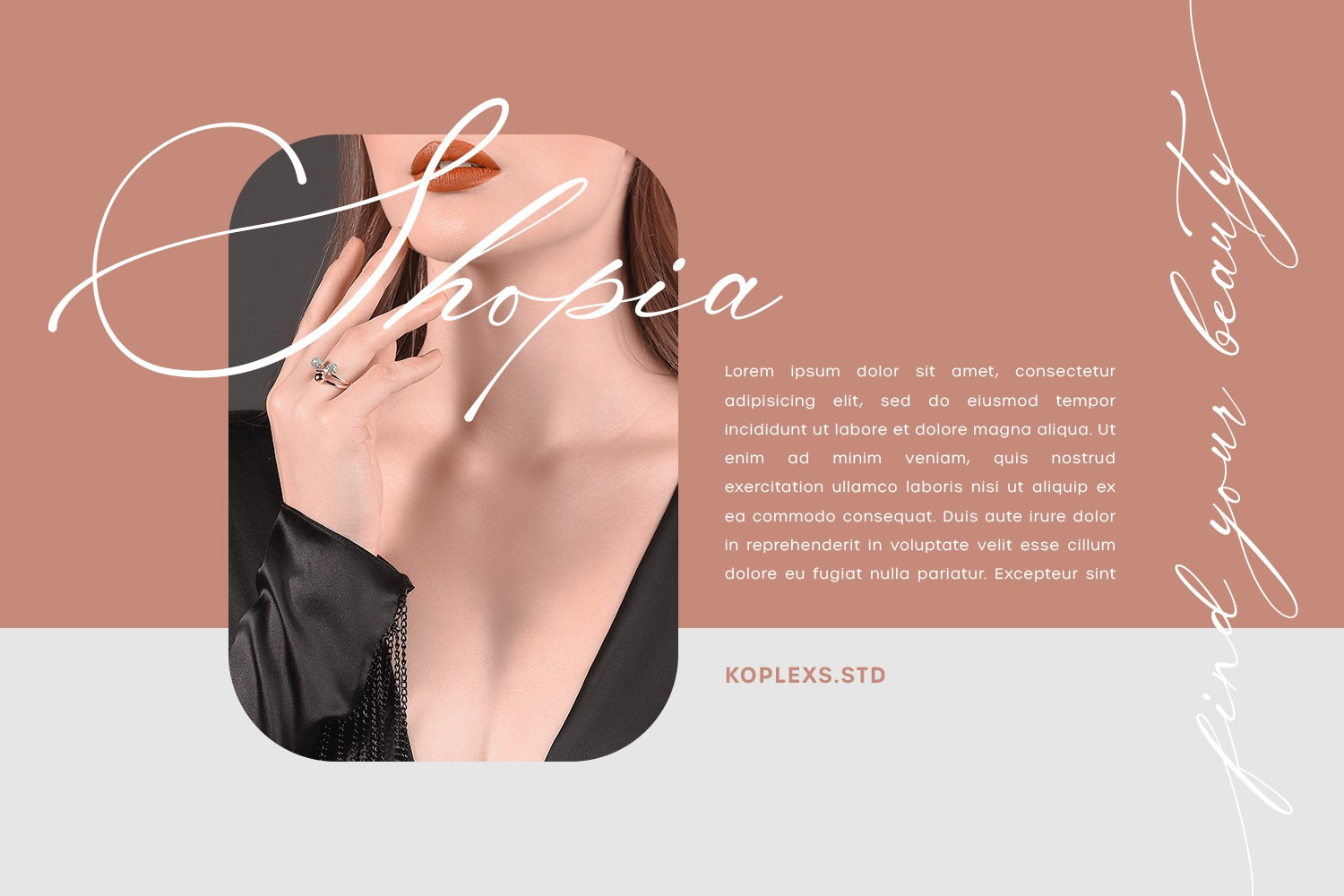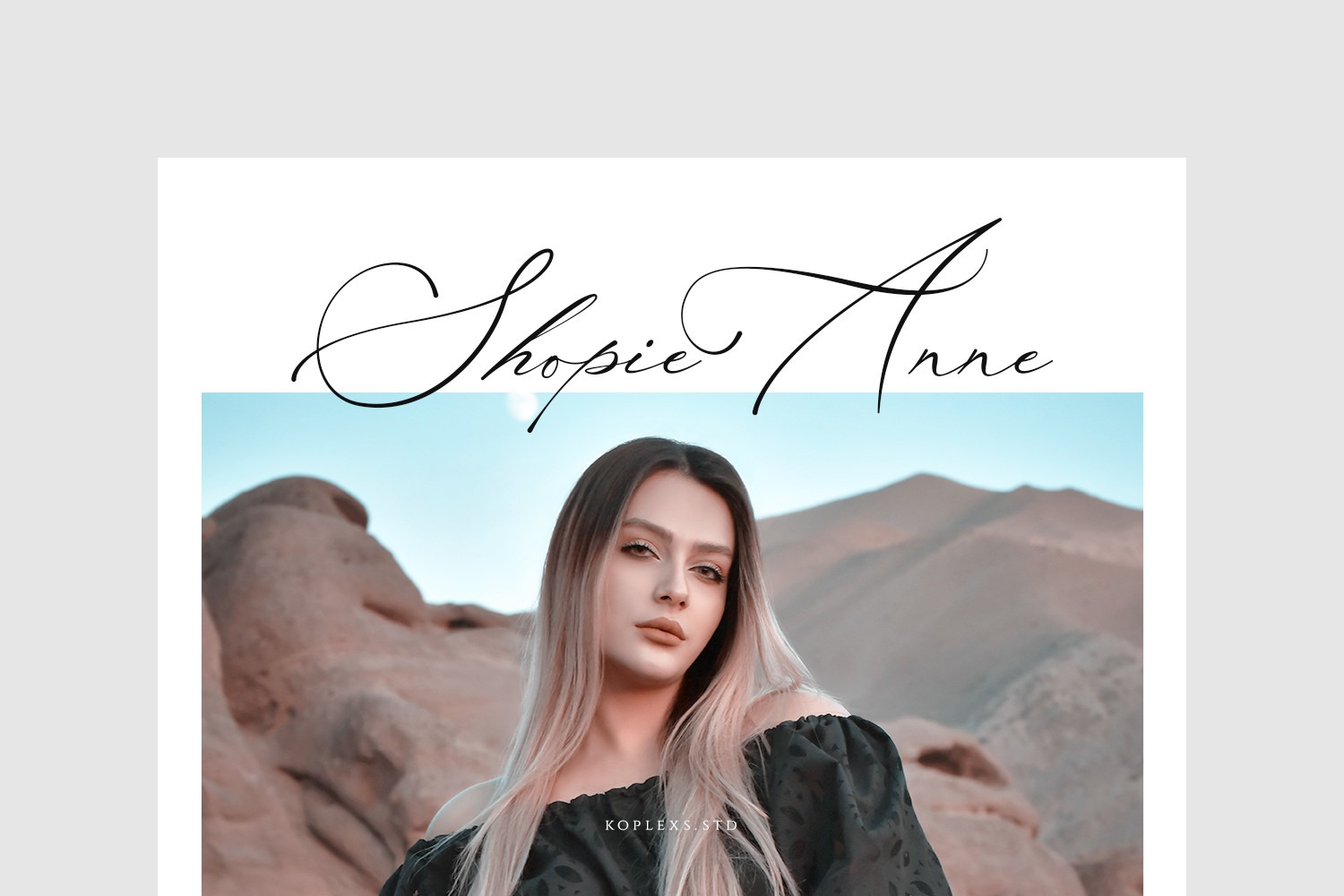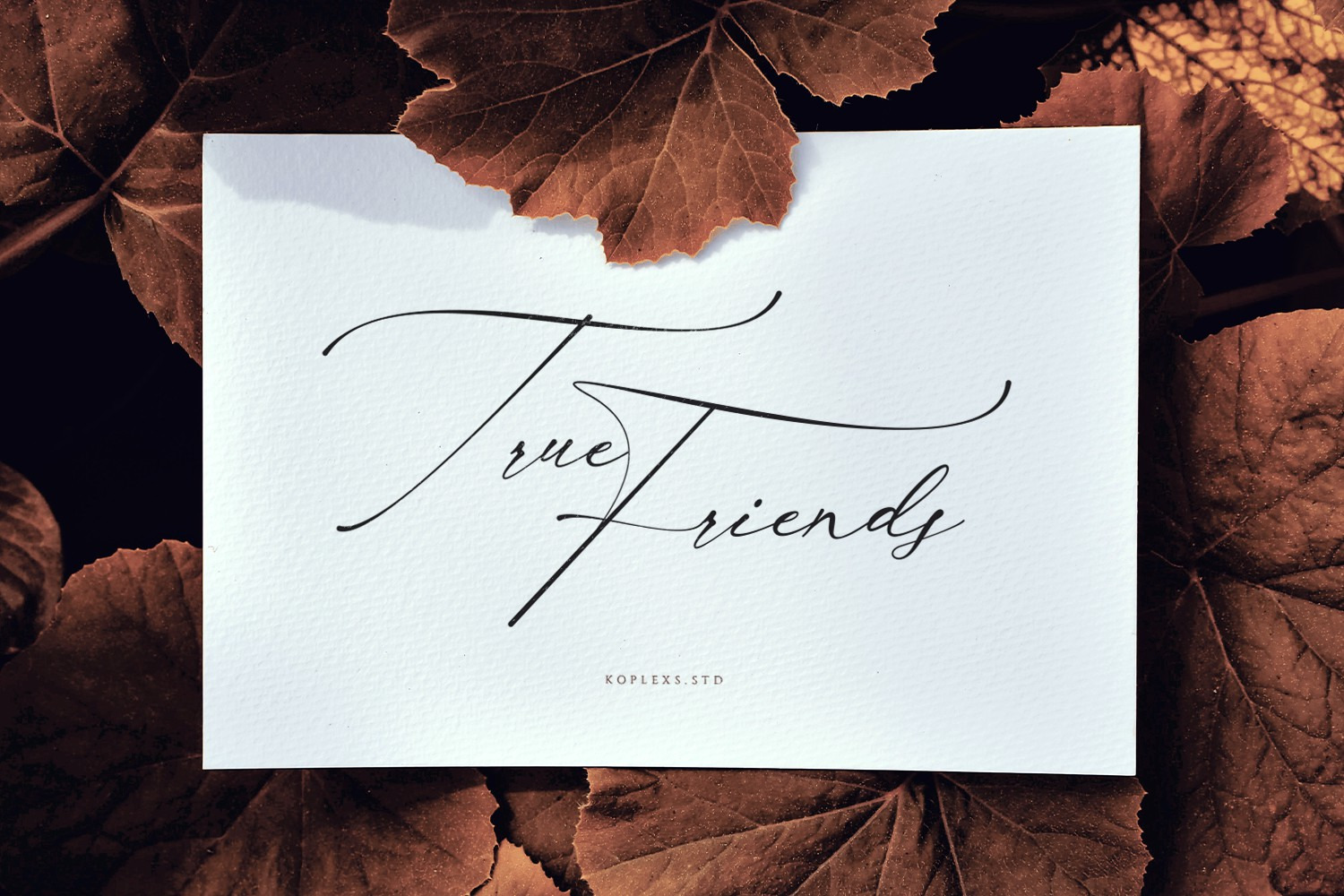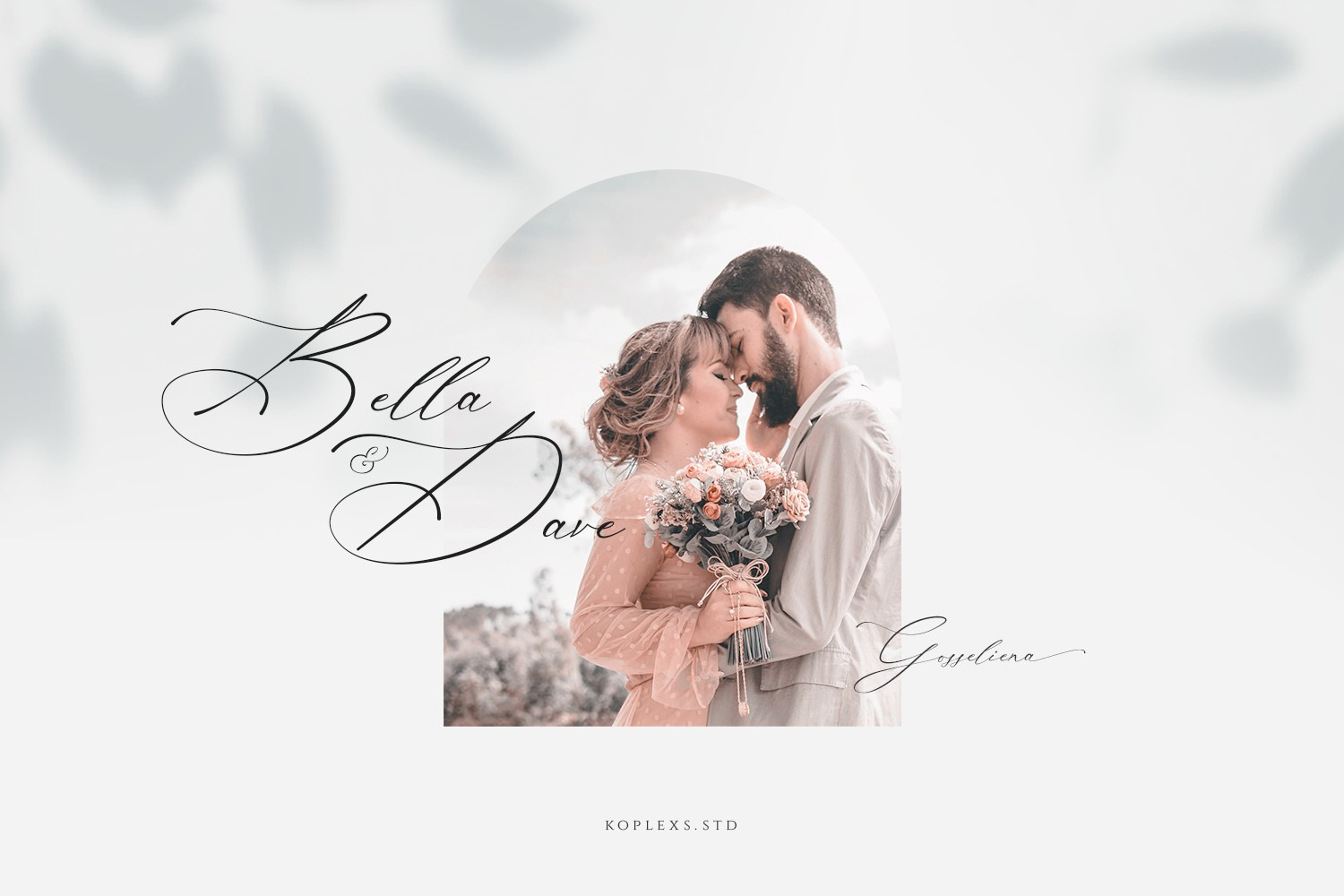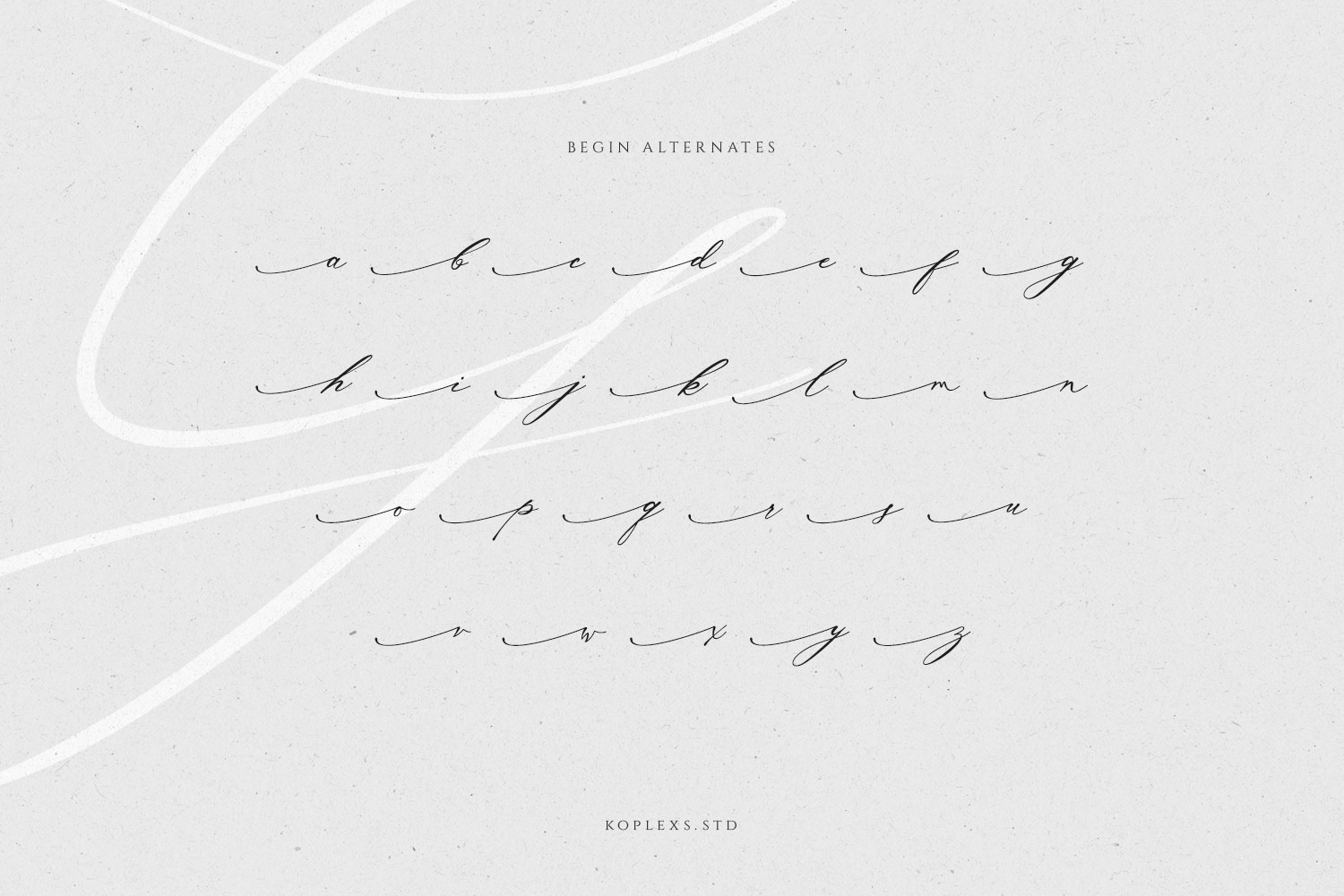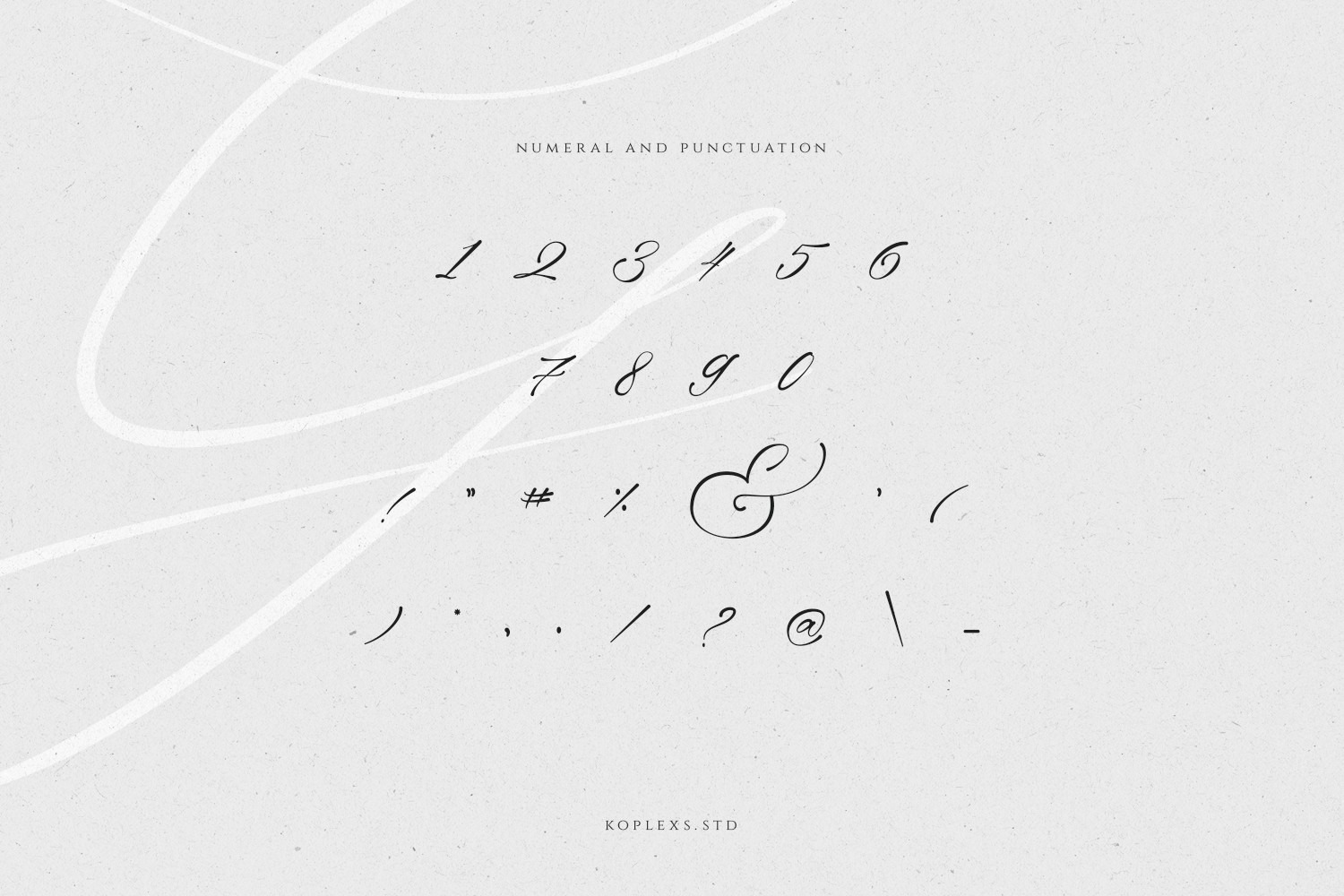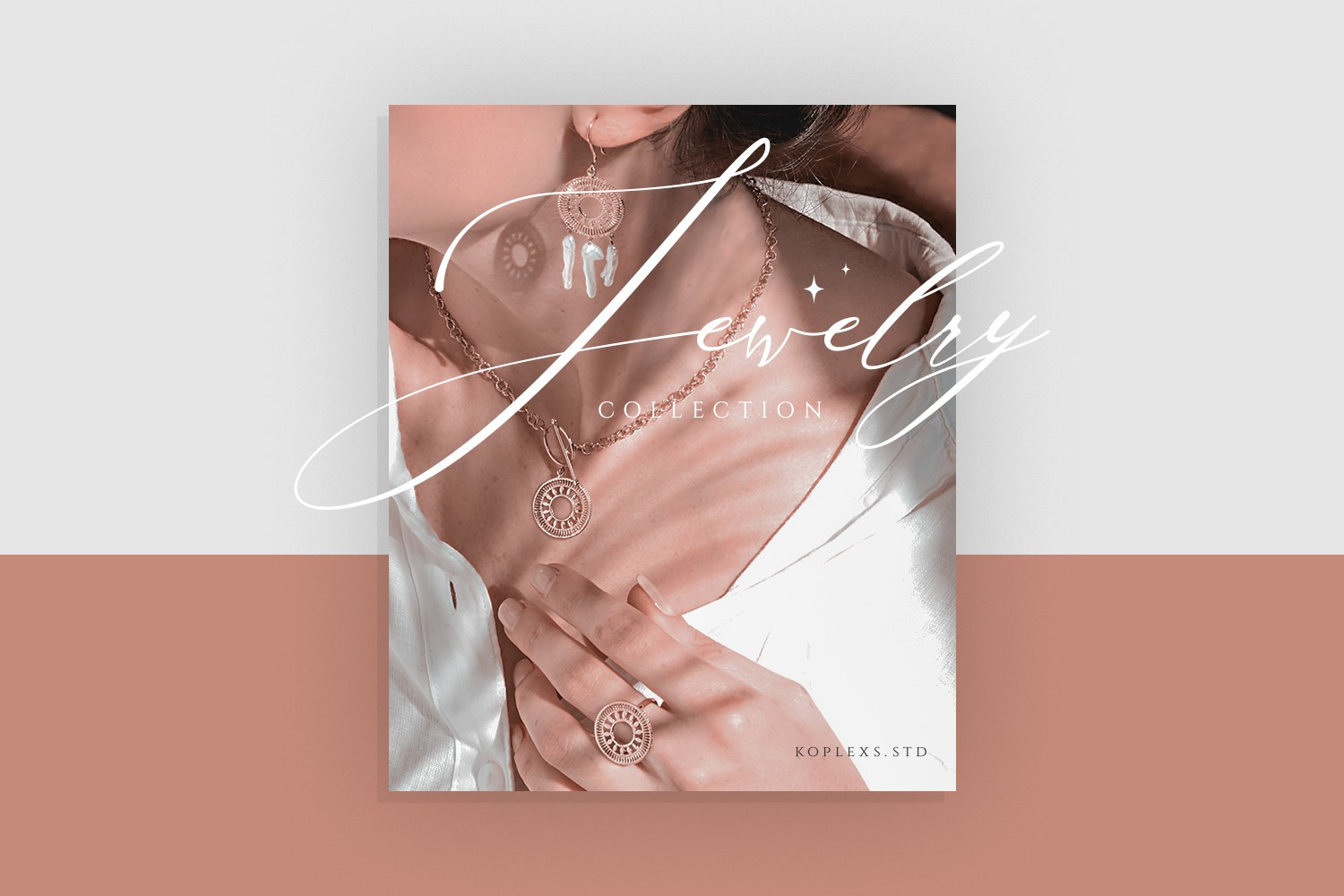
Gosseliena - Handwritten Signature Font
Gosseliena is a handwritten signature font with a calligraphy flair, ideal for creating handwritten-style logos, wedding stationery, photographer watermarks logos, modern websites, and more.
- Ligatures Features